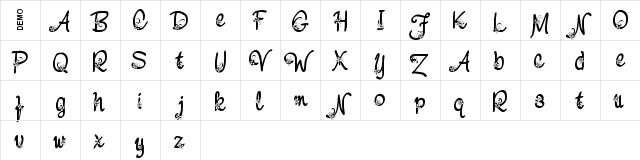
Nebulo Demo Font Preview
Nebulo Demo
Design Context for Nebulo Typeface
Nebulo is a composed and adaptable typeface that performs quietly and consistently across a wide range of design contexts.